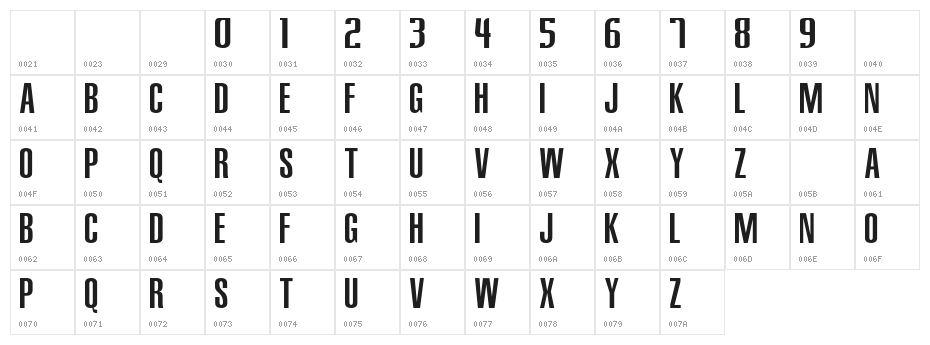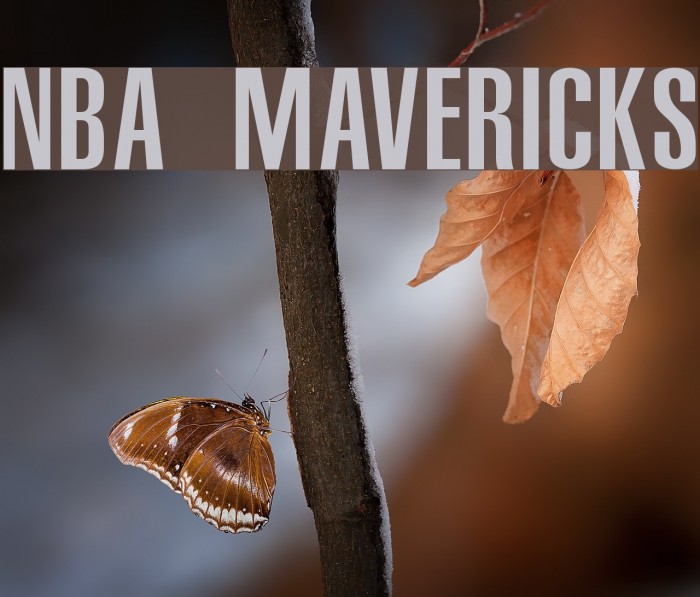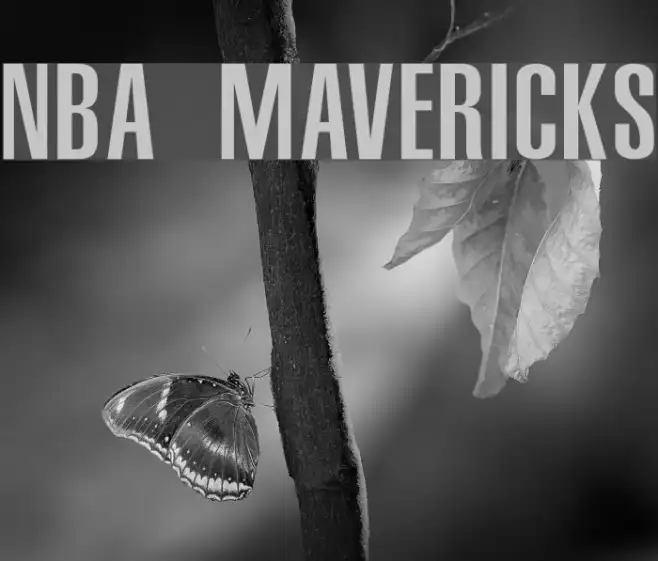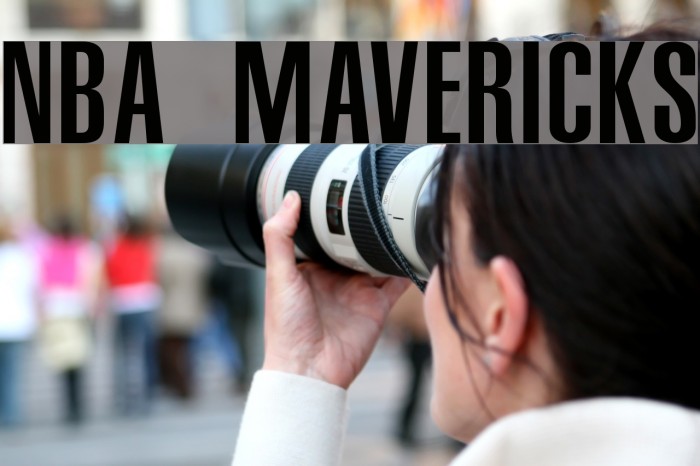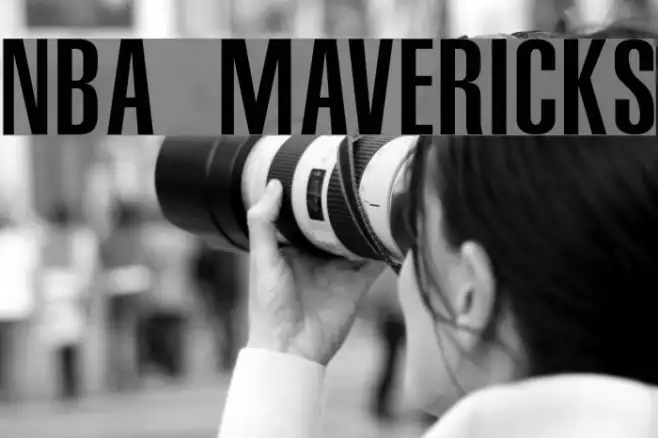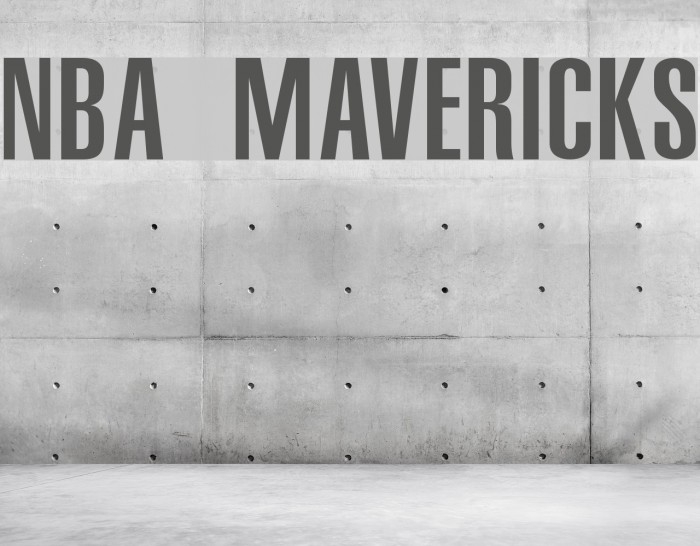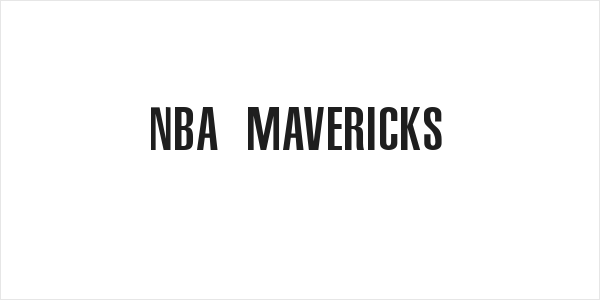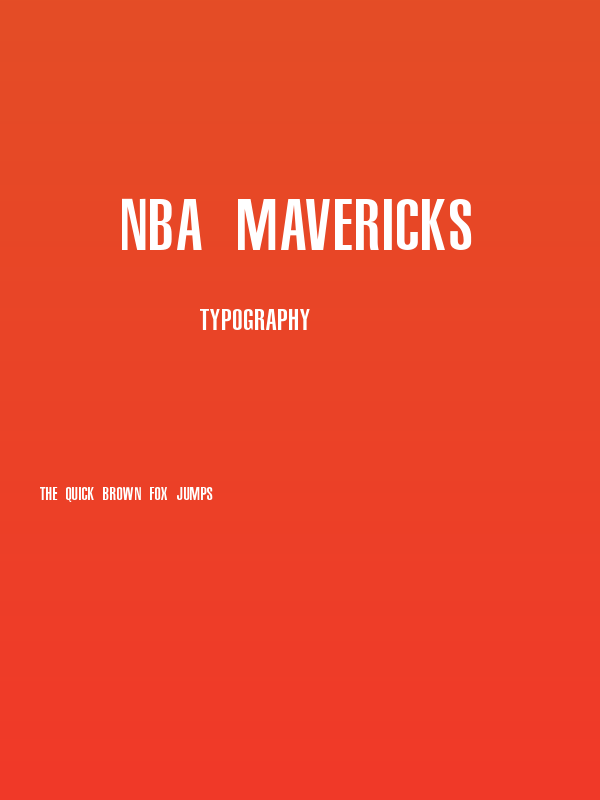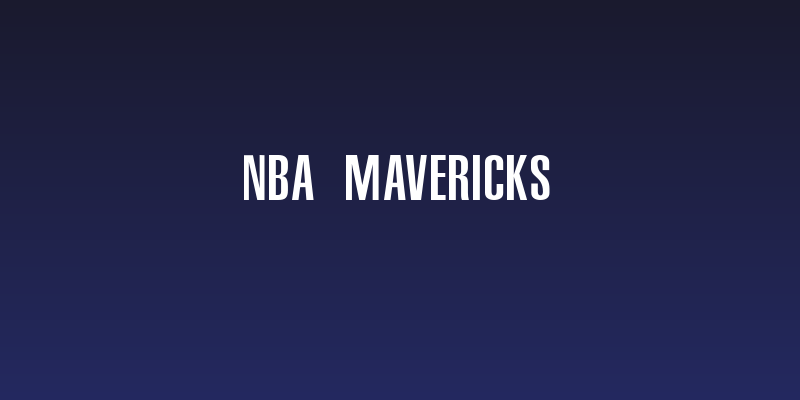
NBA Mavericks Font
NBA Mavericks Description
This font features bold, uppercase letters with a strong, commanding presence. The characters are tall and narrow, giving a condensed appearance that maximizes vertical space. The strokes are consistent in width, creating a uniform look across all letters. The numbers follow the same style, maintaining the bold and condensed characteristics. This font is designed to stand out, making it ideal for attention-grabbing headlines or titles. The absence of lowercase letters and special characters suggests a focus on simplicity and impact.